Hi. I am brand spanking new at this. I have a font I have customized that is more or less an amalgamation of some other font styles. But I have one custom character I am trying to add, and it is so much larger than all my other characters. I am not sure what to do to fix it.
I am having trouble with this capital O specifically. I can’t get it centered right and it’s larger than everything else. I would appreciate if someone could help. Also, if they had any suggestions on other things to set the font apart, I am very open to suggestions. I am still very new at all this, as this is my first font build.
I would set some horizontal guidelines at the top and bottom of the capital N (select two nodes in a horizontal line at the top then at the bottom, using shortcut “g” to create a guide.
Then I would adjust the height of the other glyphs to match.
There is no rule that says ascenders and descenders should align vertically, that is up to you, but that is my usual preference. I might also reuse the contours of the O for the Q for the sake of symmetry, so that they share the same width and height/position of the bowls.
If you split glyphs into reusable component contours, it makes it easier to maintain a consistent weight and shape to the glyphs. Take a look at the contours in O and Q to see how they reuse the same contours, and notice how I have smoothed the curves on the tail of the Q. Fewer nodes makes it easier to manipulate contours to the desired shape.
If you want the Q to be narrower than the O, just scale the ellipses horizontally using the transform toolbar until they are what you want. Check that the stroke width is still consistent after scaling.
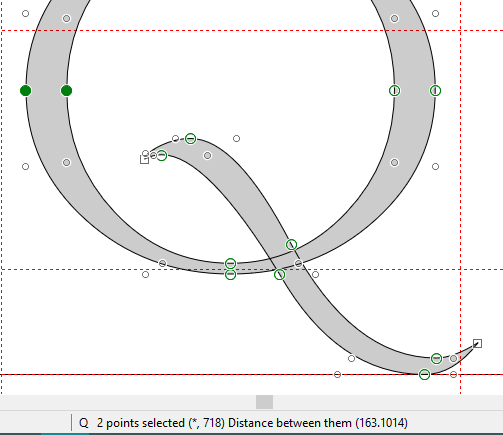
When you have finished designing the contours, combine them using “Get Union of Contours.”